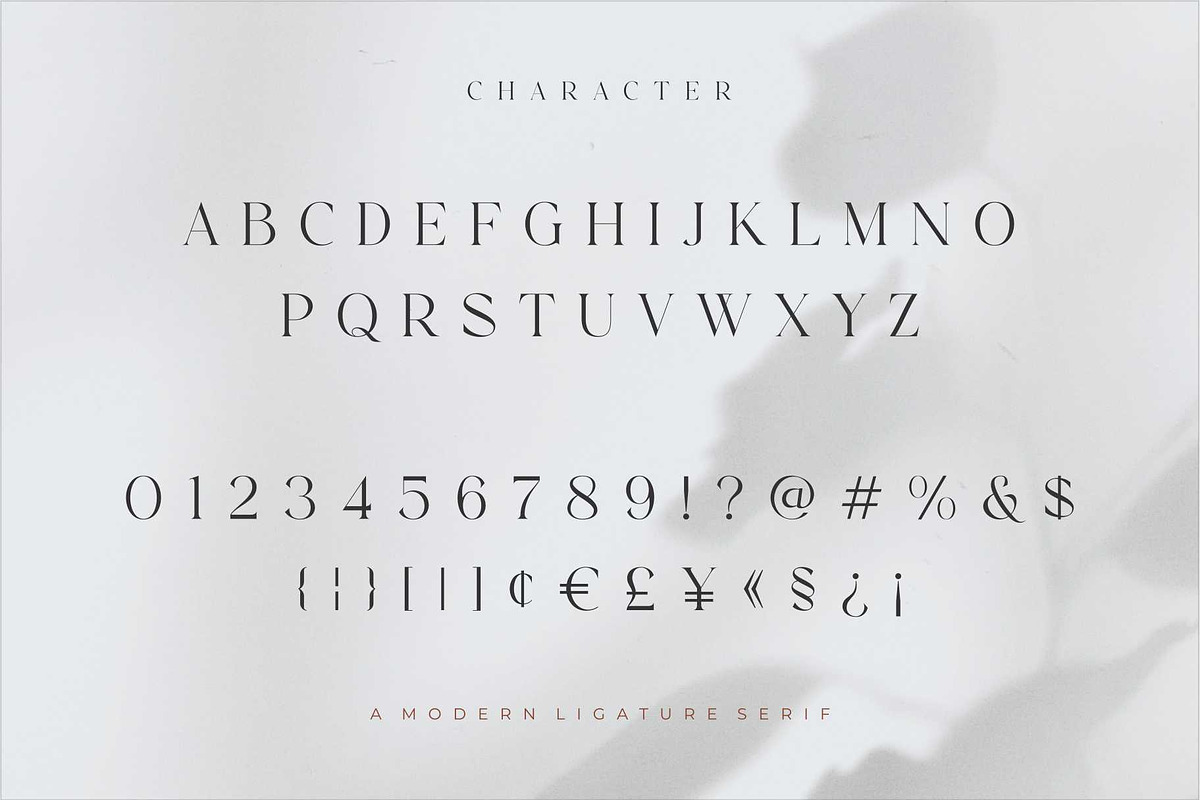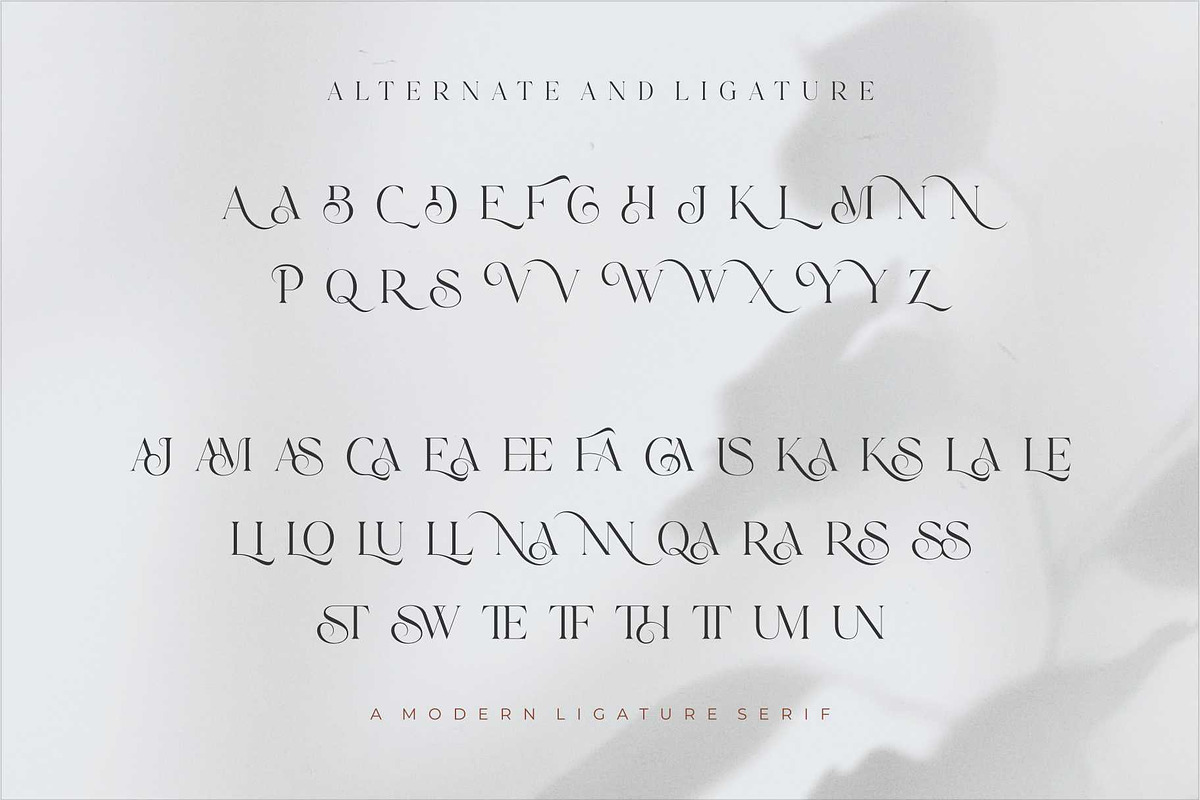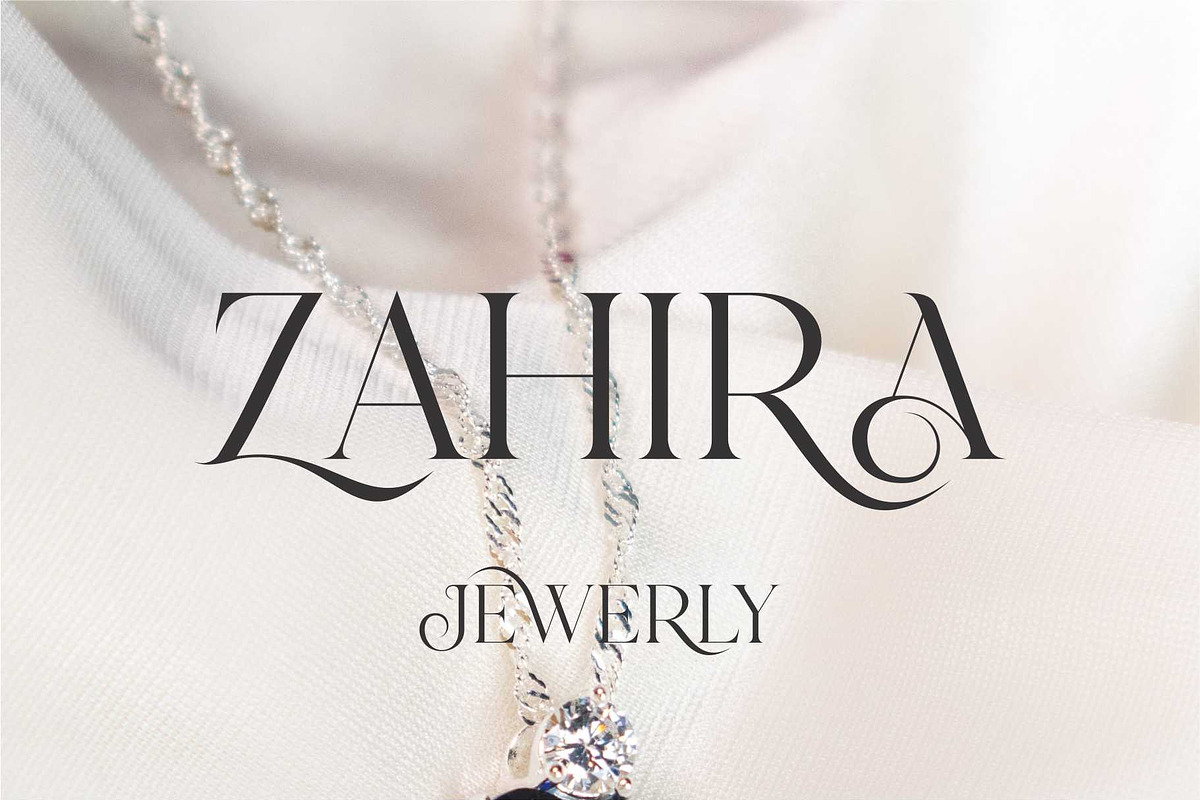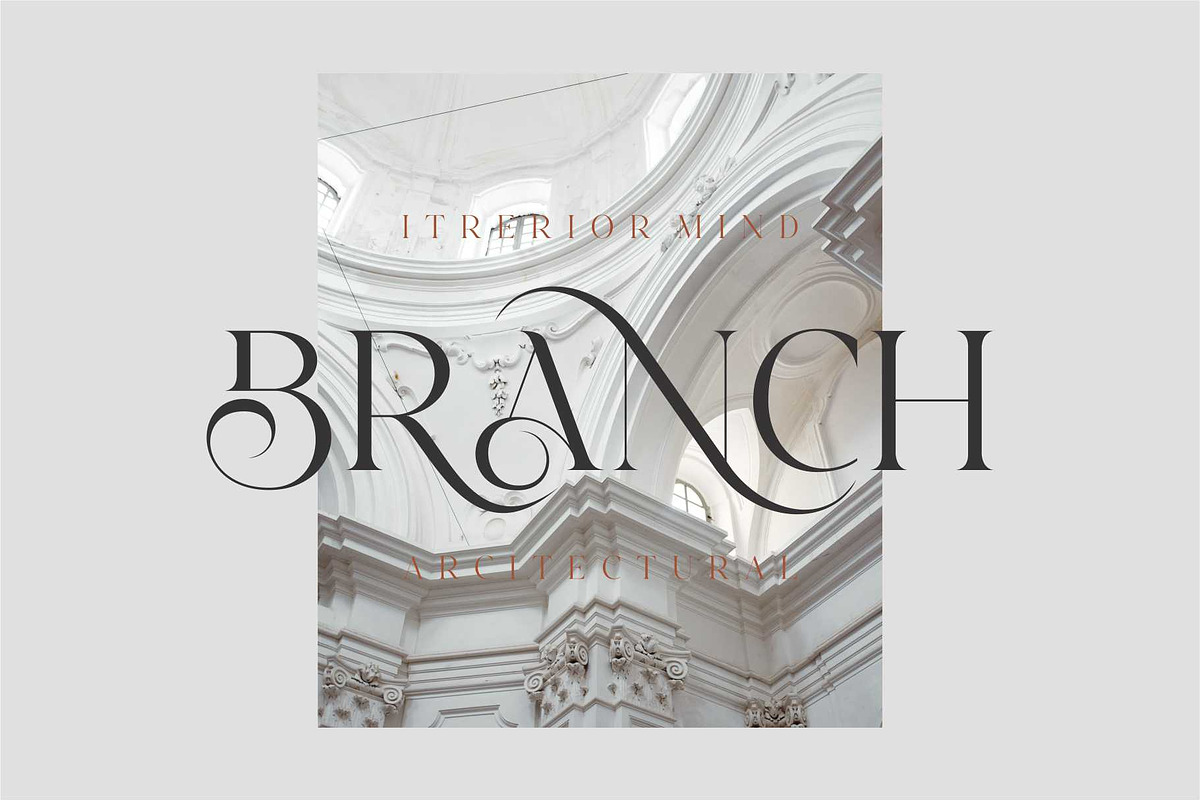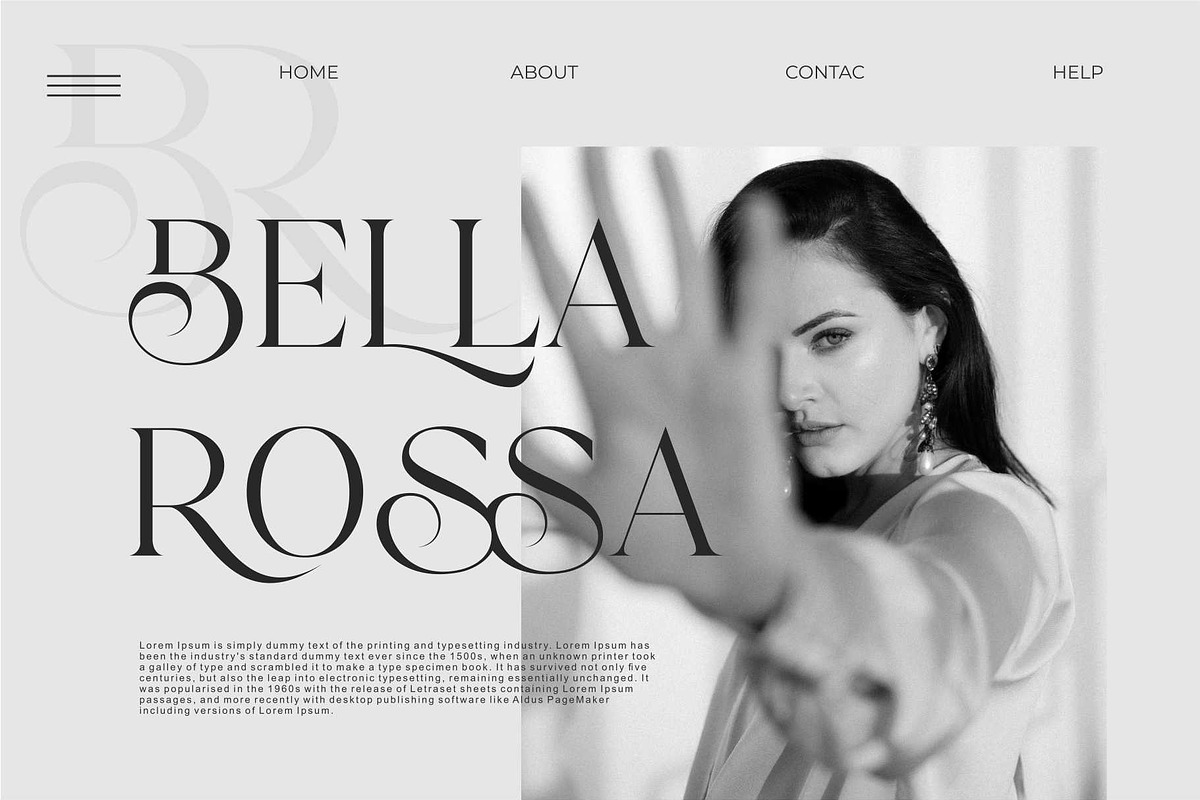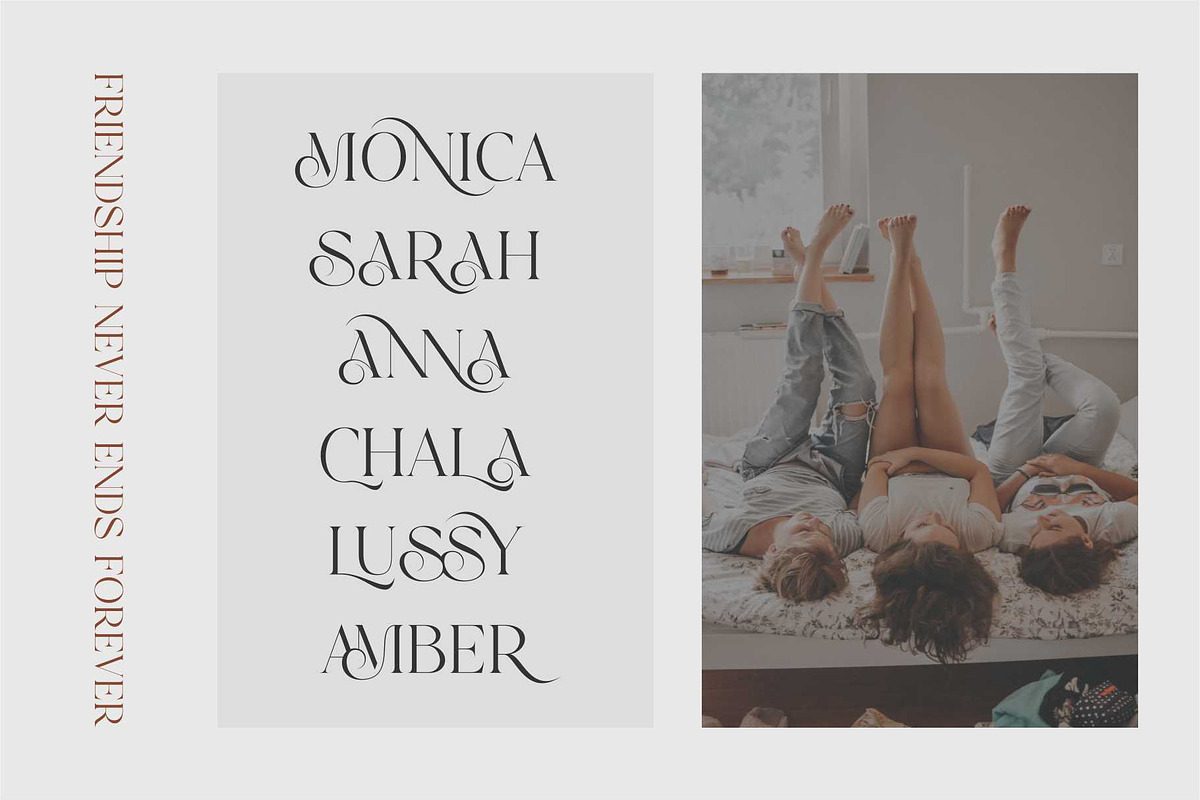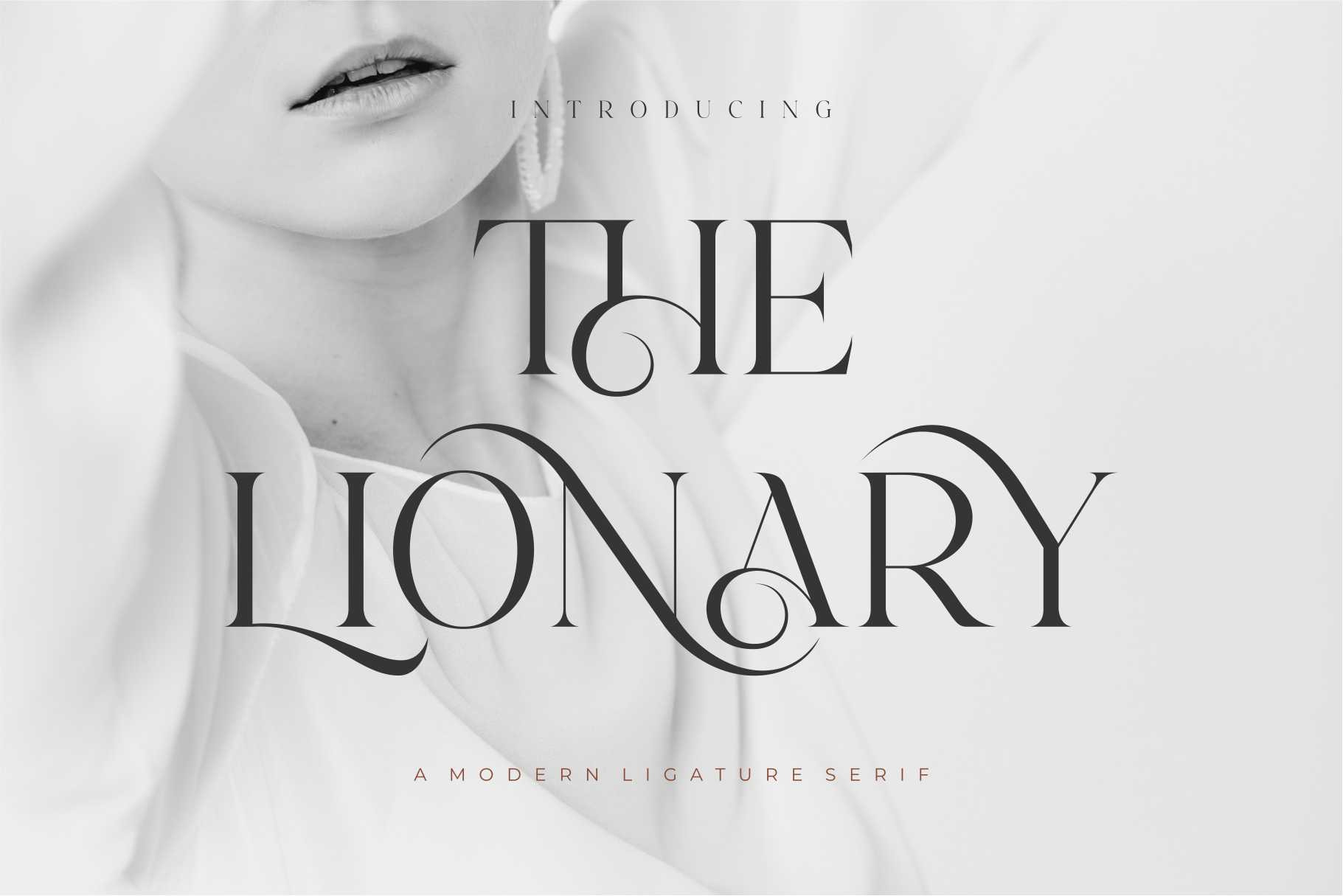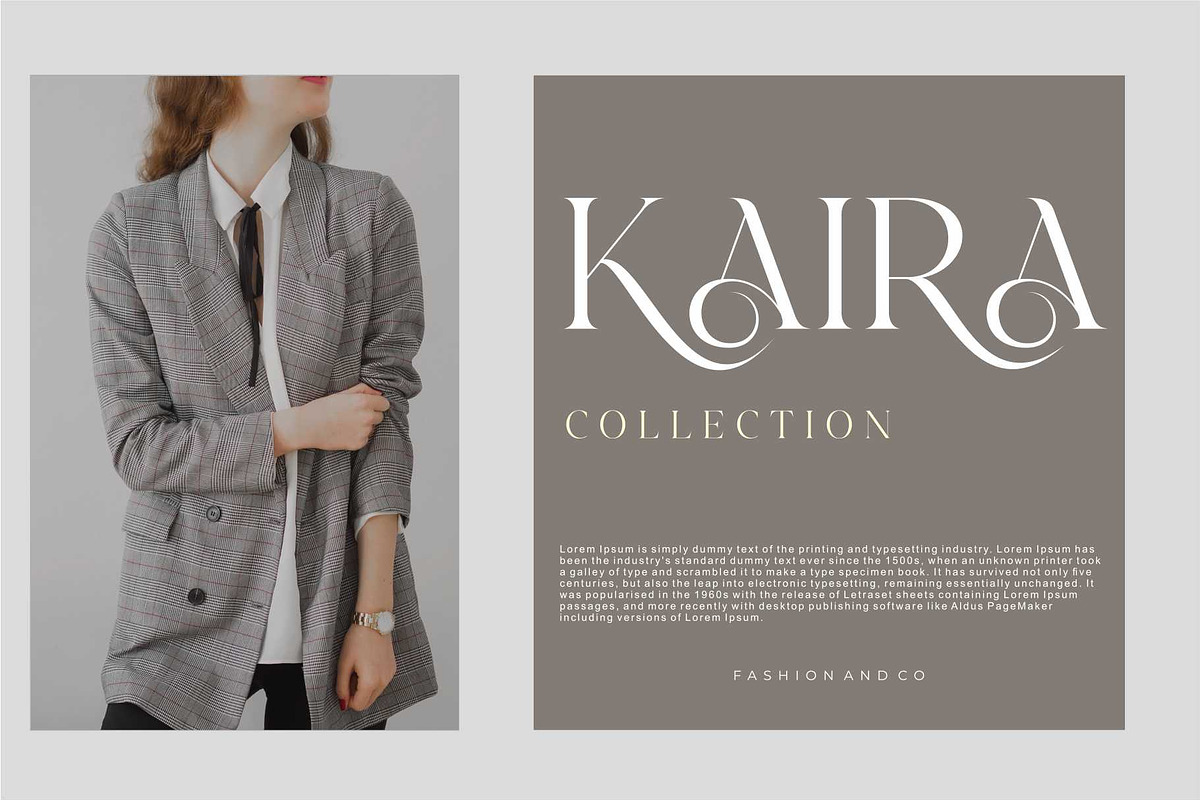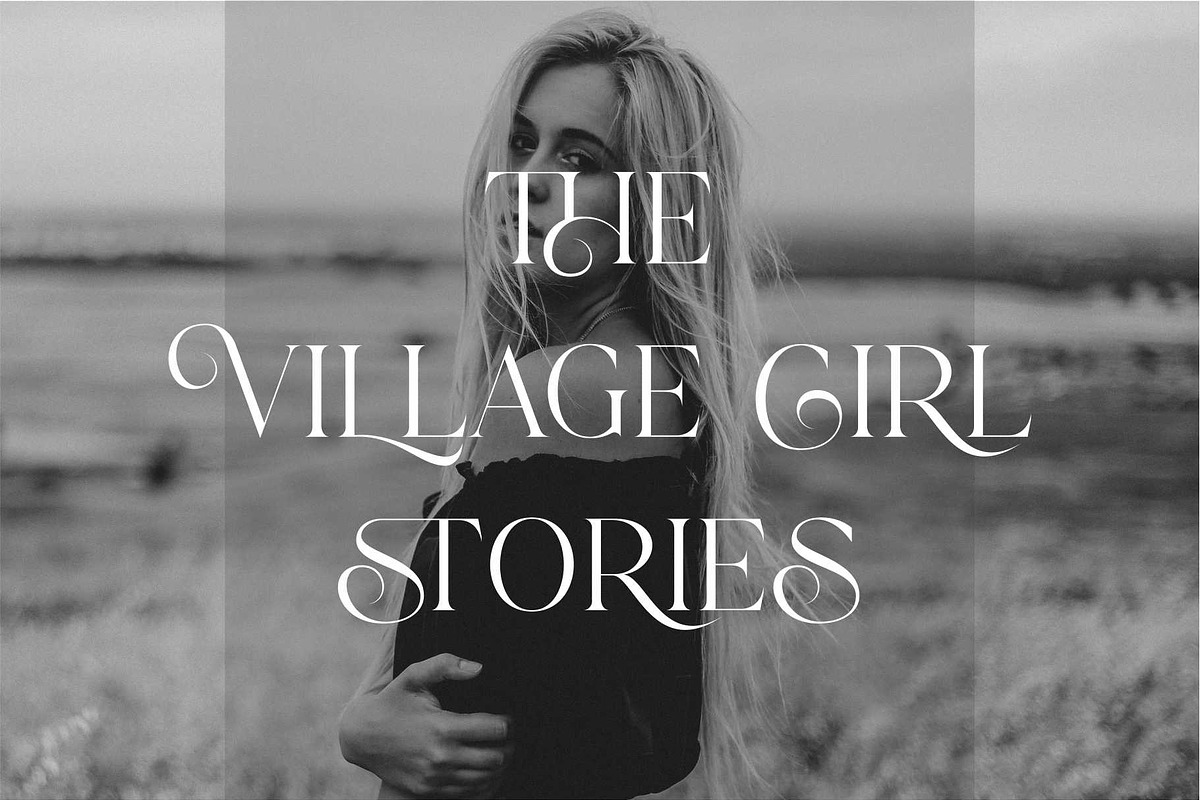
Lionary Modern Serif Font
Lionary Modern Serif Font inspired by the famous minimalist logo perfect for the purposes of designing templates, brochures, videos, advertising branding, logos, invitation, layout design, elegant crafting, beauty design and more.